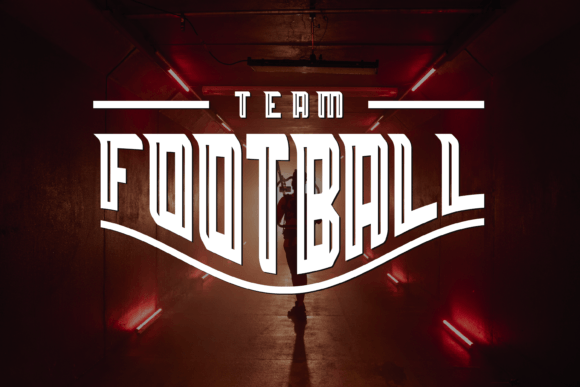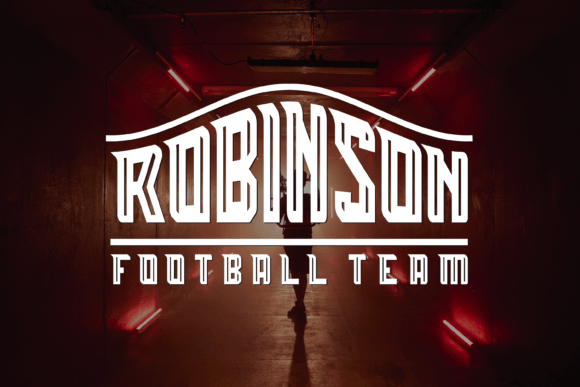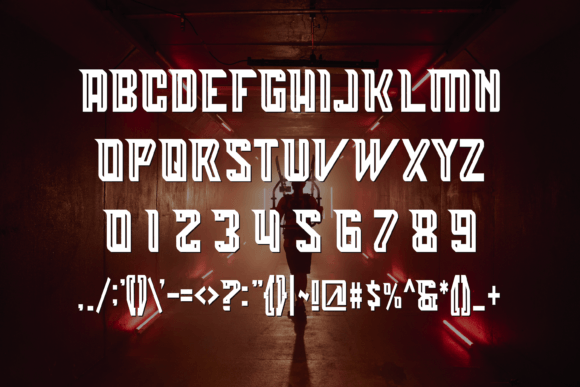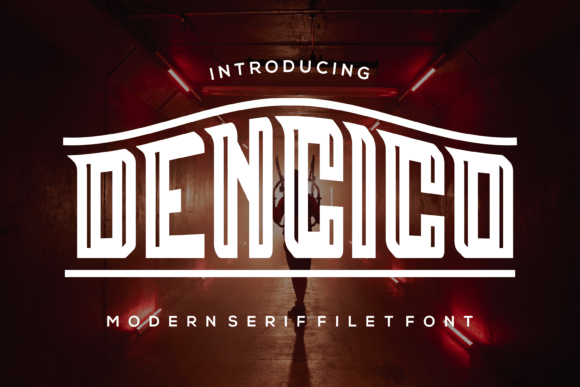
Introduction to Dencico Font
Dencico is a slab serif font with a charming touch of style.
This font is suitable for those of you who want a design that displays an interesting side but is still relevant for a modern look .